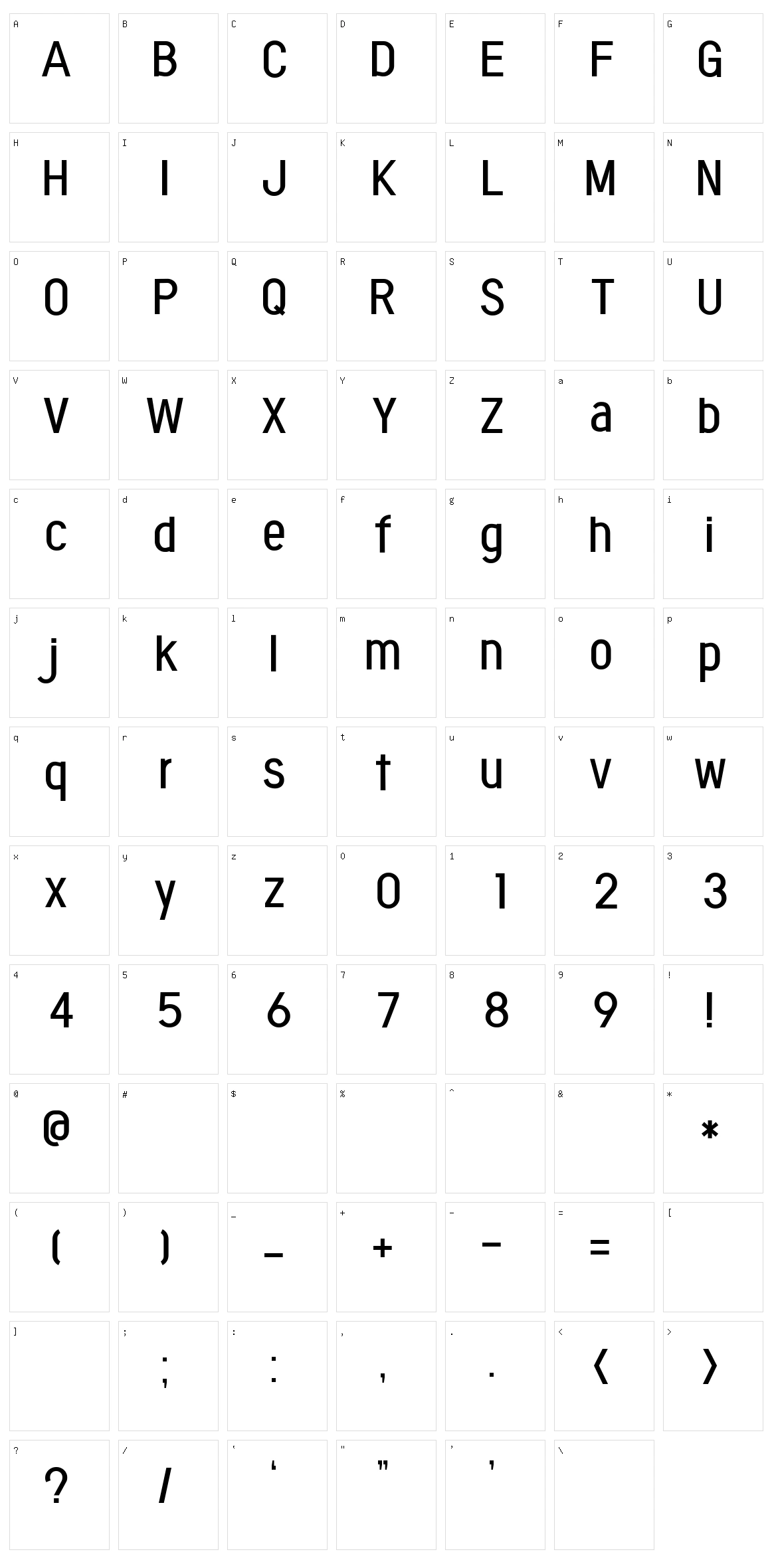
The free font Fontopo Neutral is carefully designed by Yoshihisa Nakai, showcasing a thoughtful balance of creativity and usability and falls under the Sans serif font style. When you download the ZIP file, it contains only 9.08 KB of font files, making it lightweight and quick to download. Please review the license details below to understand permitted usage and distribution rights. If license information is not available, we recommend using this font for personal projects only or contacting the author directly for commercial usage permissions.